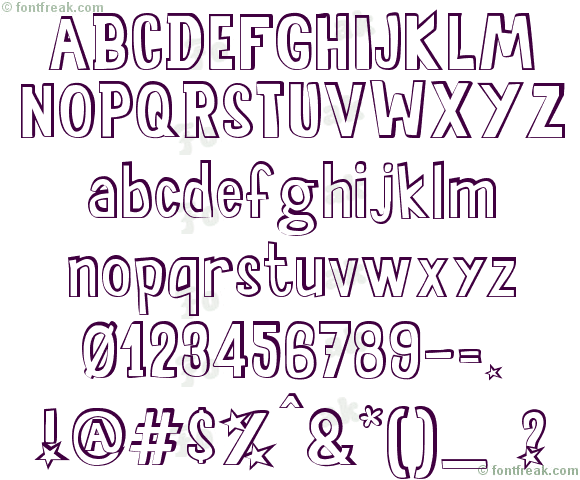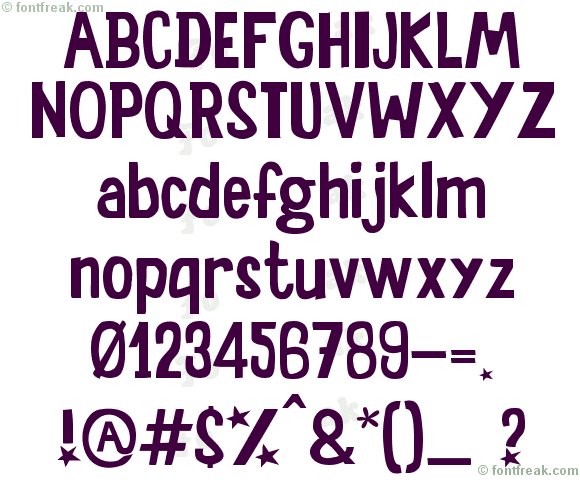
Sala de Fiestas Out
Sala de Fiestas
About Sala de Fiestas Out
Sala de Fiestas Out, crafted by the innovative kmzero font foundry, is a captivating display font that blends playful charm with striking visual appeal. This decorative typeface features a unique combination of bold stroke weight and distinctive outlines, creating a whimsical yet sophisticated look that is sure to attract attention. The contrast in thickness adds depth to the letters, while the relaxed spacing enhances readability, making it suitable for various design applications.
This font excels in use cases that demand a touch of flair and personality. It is ideal for vibrant wedding invitations, where its lively character can set a celebratory tone. Additionally, Sala de Fiestas Out is perfect for movie posters, capturing the essence of fun and excitement. Restaurant menus can also benefit from its engaging style, enticing customers with a visually appealing presentation of culinary delights. Content creators will find this font appealing for social media graphics, where eye-catching visuals are key to engagement.